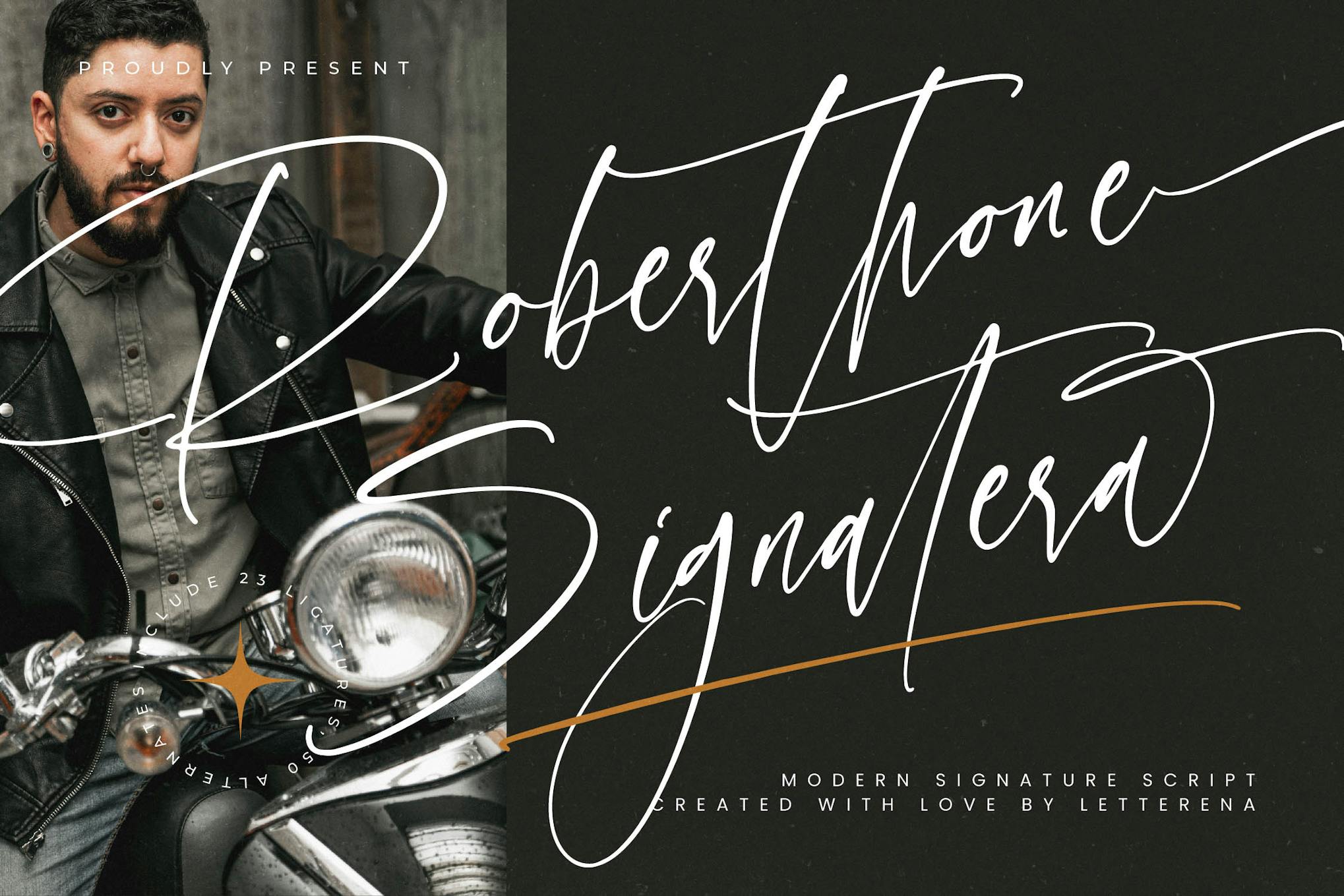
Roberthone Signatera Modern Signature Script Font
The Roberthone Signatera Modern Signature Script Font excels in contemporary design applications including cutting-edge brand identities, innovative startup logos, modern corporate branding, tech company signatures, progressive business cards, sleek product packaging, contemporary web design, trendy social media graphics, forward-thinking marketing materials, and sophisticated digital interfaces. Its modern script style makes it perfect for projects requiring contemporary elegance that communicates innovation and establishes progressive brand positioning with design-conscious audiences seeking modern sophistication.
What makes the Roberthone Signatera Modern Signature Script Font genuinely exciting is its exceptional fusion of traditional signature craftsmanship with bold contemporary design principles. The font features streamlined letterforms with innovative flourishes and cutting-edge proportions that create a distinctly modern appearance. Each character displays sophisticated attention to detail with sleek curves, progressive connections, and contemporary spacing that give text a futuristic, hand-crafted quality. The font's modern character and dynamic rhythm create an atmosphere of innovation while maintaining the personal authenticity of handwritten signatures.
The Roberthone Signatera Modern Signature Script Font family typically includes regular weight with extensive character coverage, featuring uppercase and lowercase letters, numerals, punctuation, and international glyphs. The typeface often incorporates stylistic alternates, contextual ligatures, and modern swashes that enhance its signature sophistication. These additional elements provide designers with creative flexibility to customize text appearance and achieve more natural-looking contemporary handwriting that reflects the font's innovative and progressive character.
This revolutionary signature font distinguishes itself through its remarkable ability to convey modernity and sophistication simultaneously. Unlike outdated script fonts that can appear traditional or conservative, Roberthone Signatera Modern Signature Script Font maintains a fresh, forward-thinking edge while delivering professional polish. The font's contemporary character makes it ideal for tech companies, modern brands, and innovative projects where staying current with design evolution is essential for market relevance and competitive advantage.